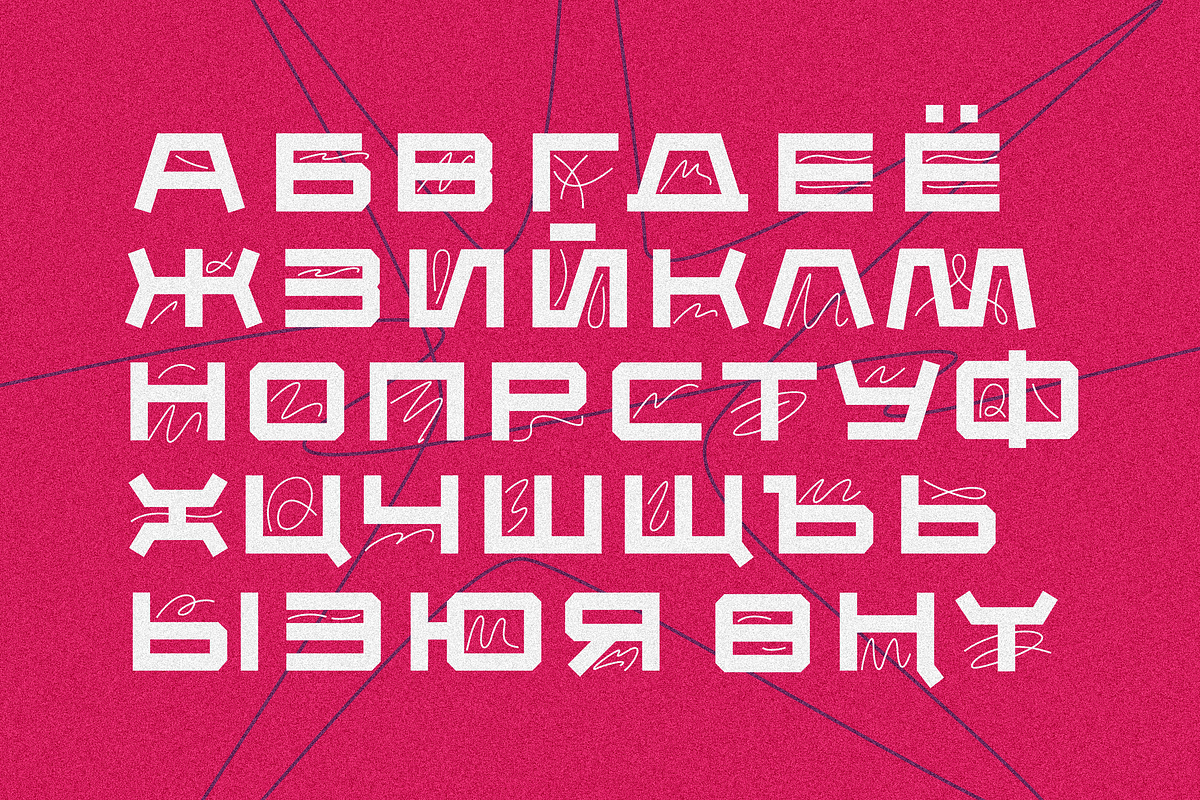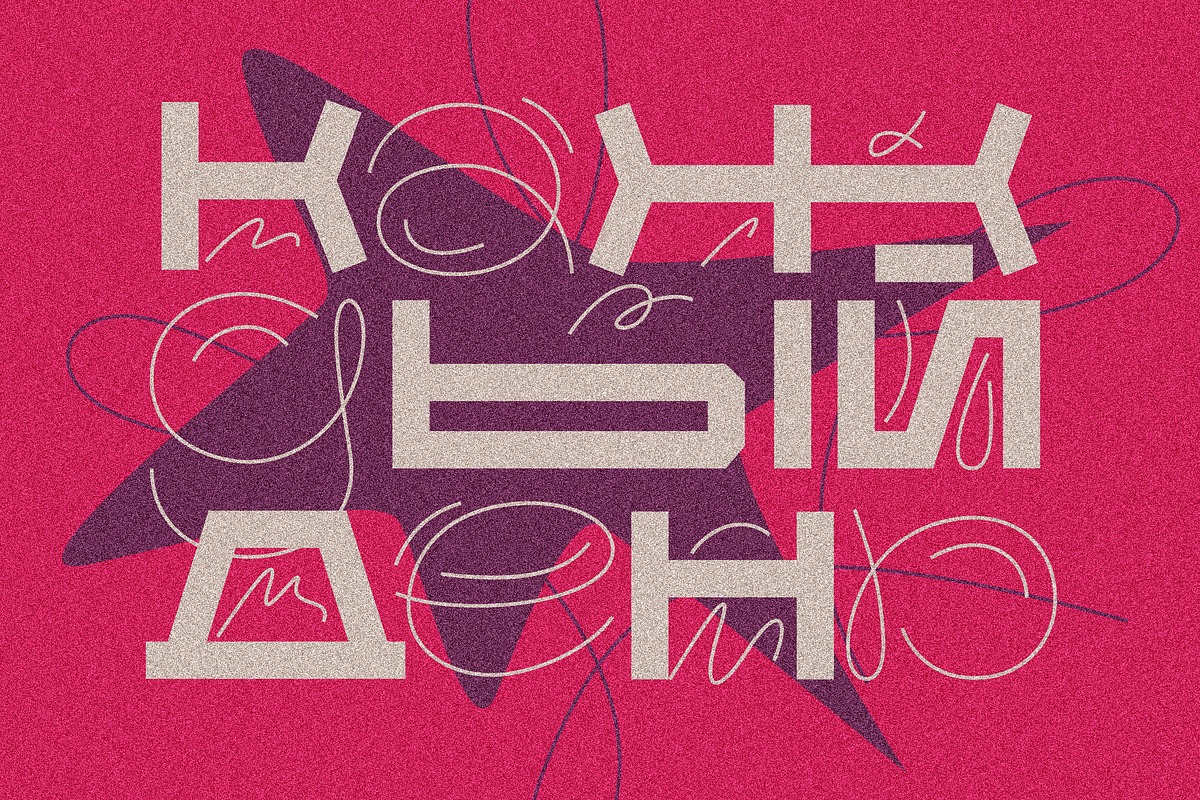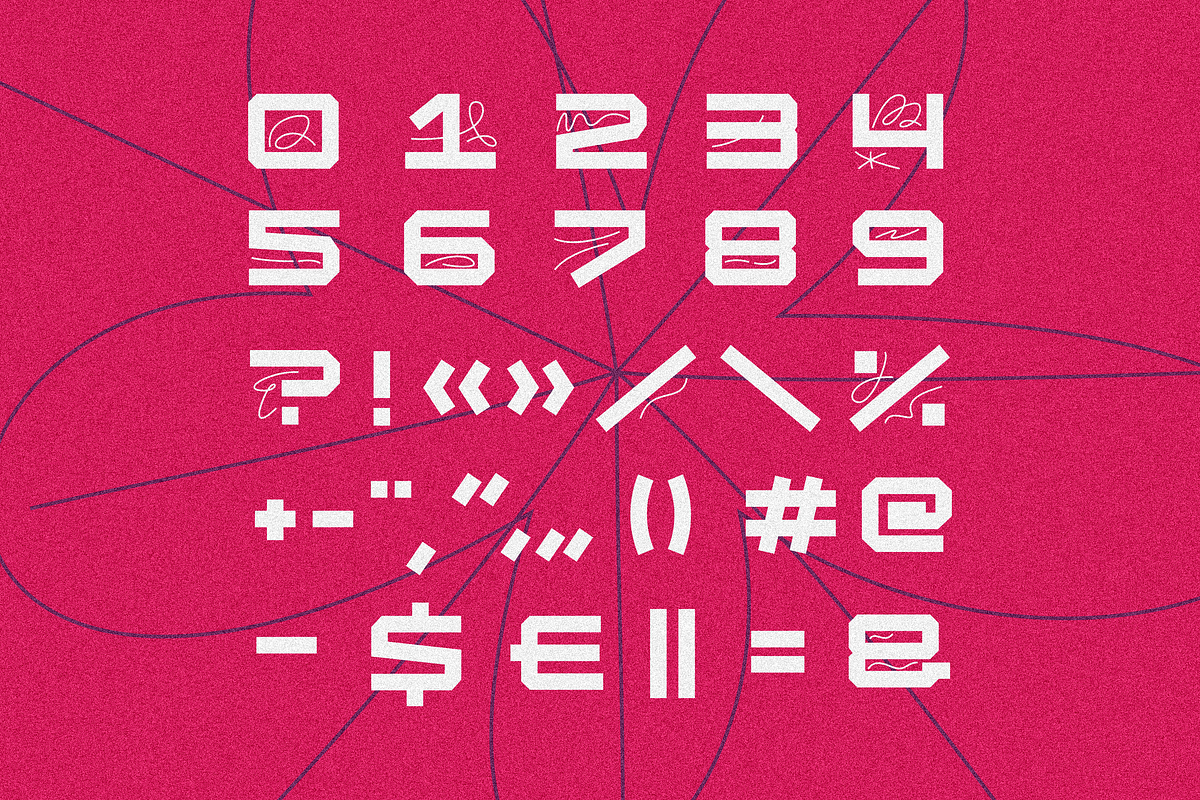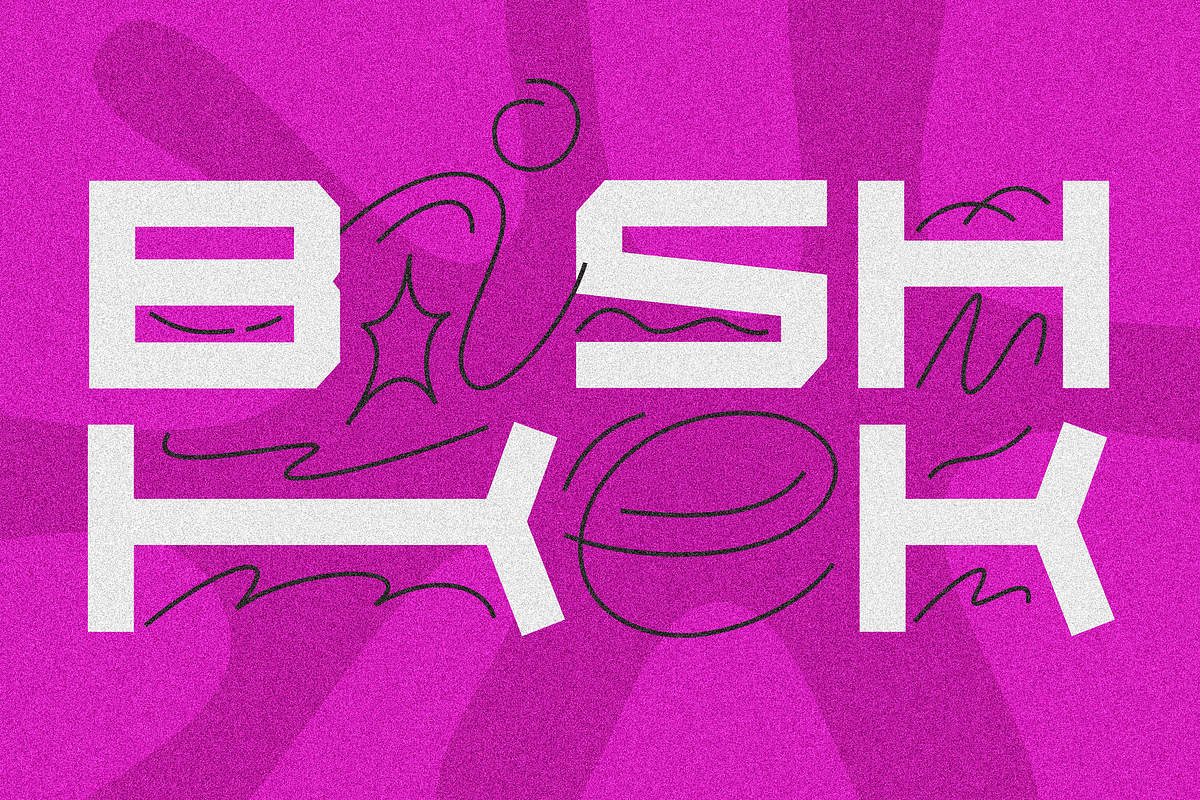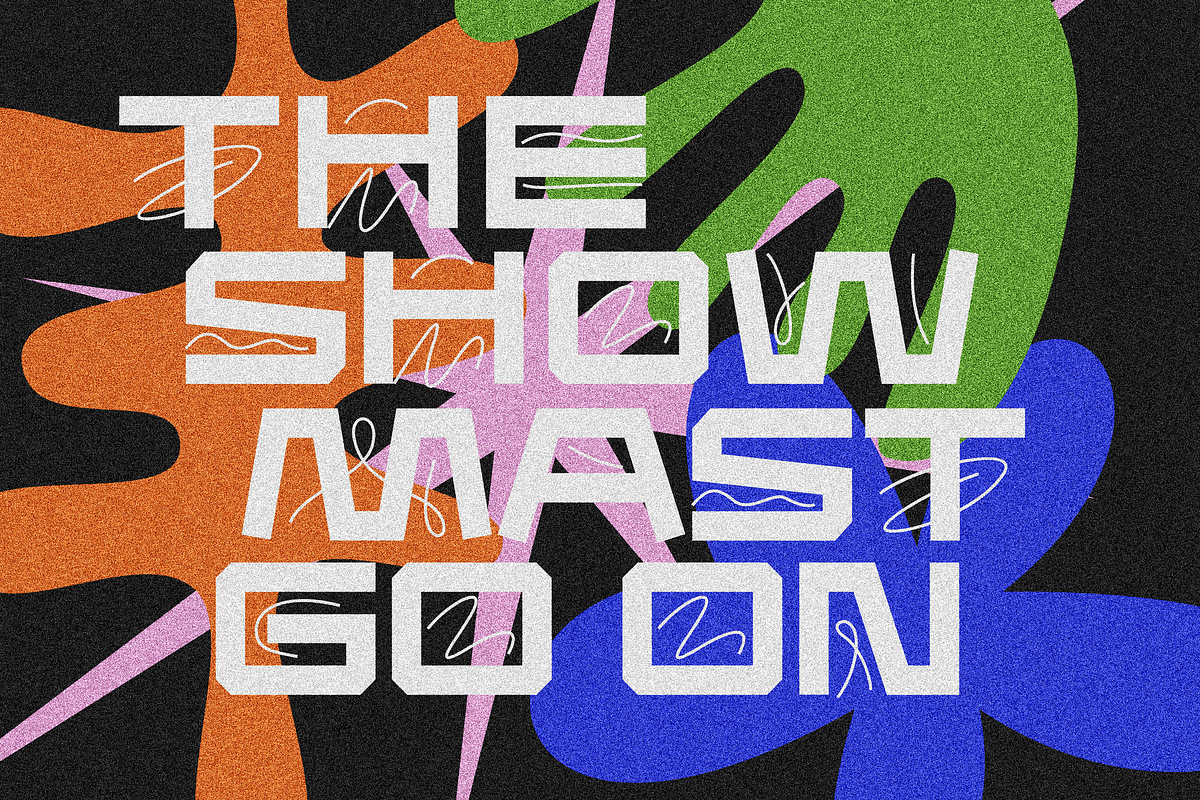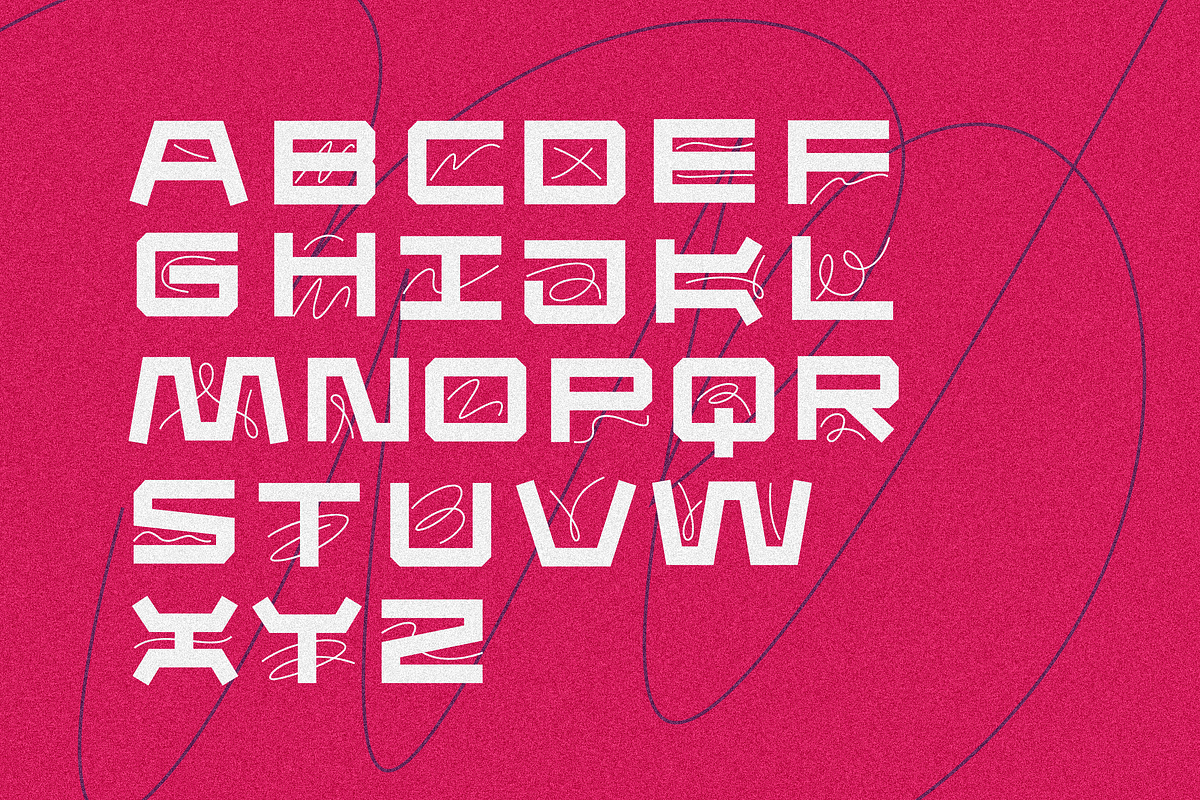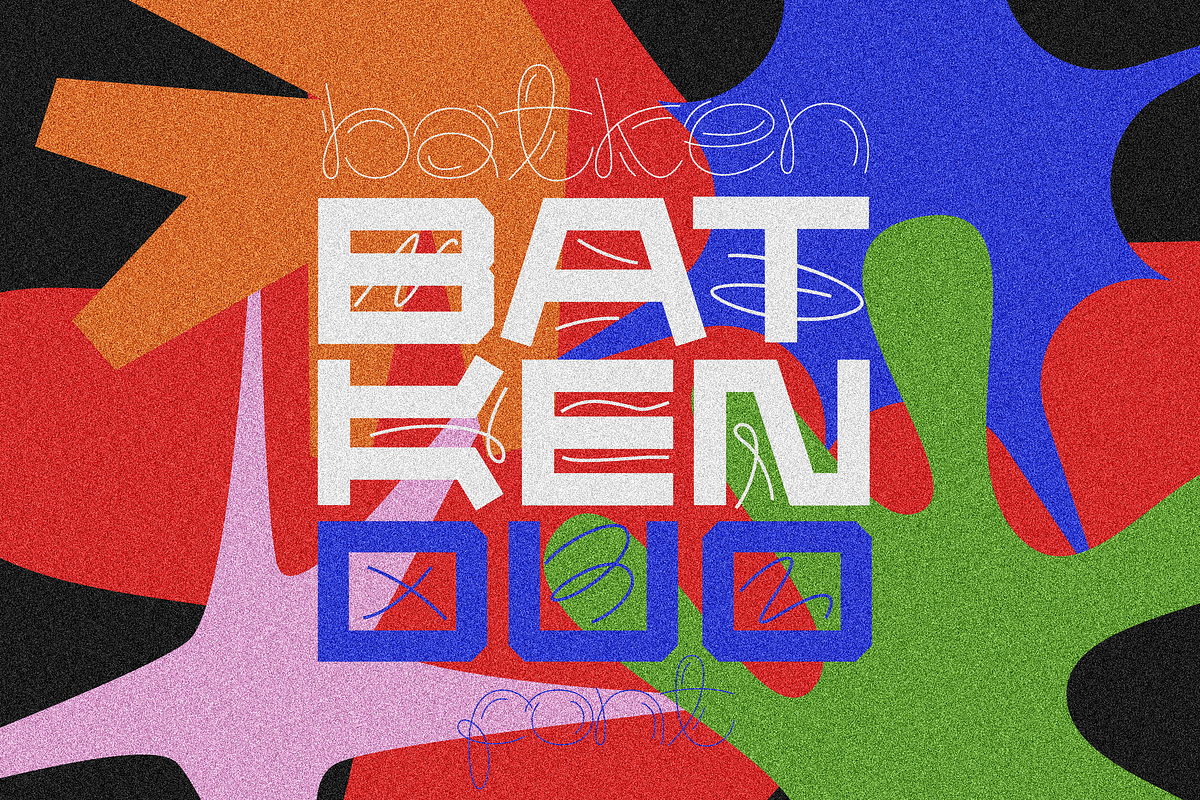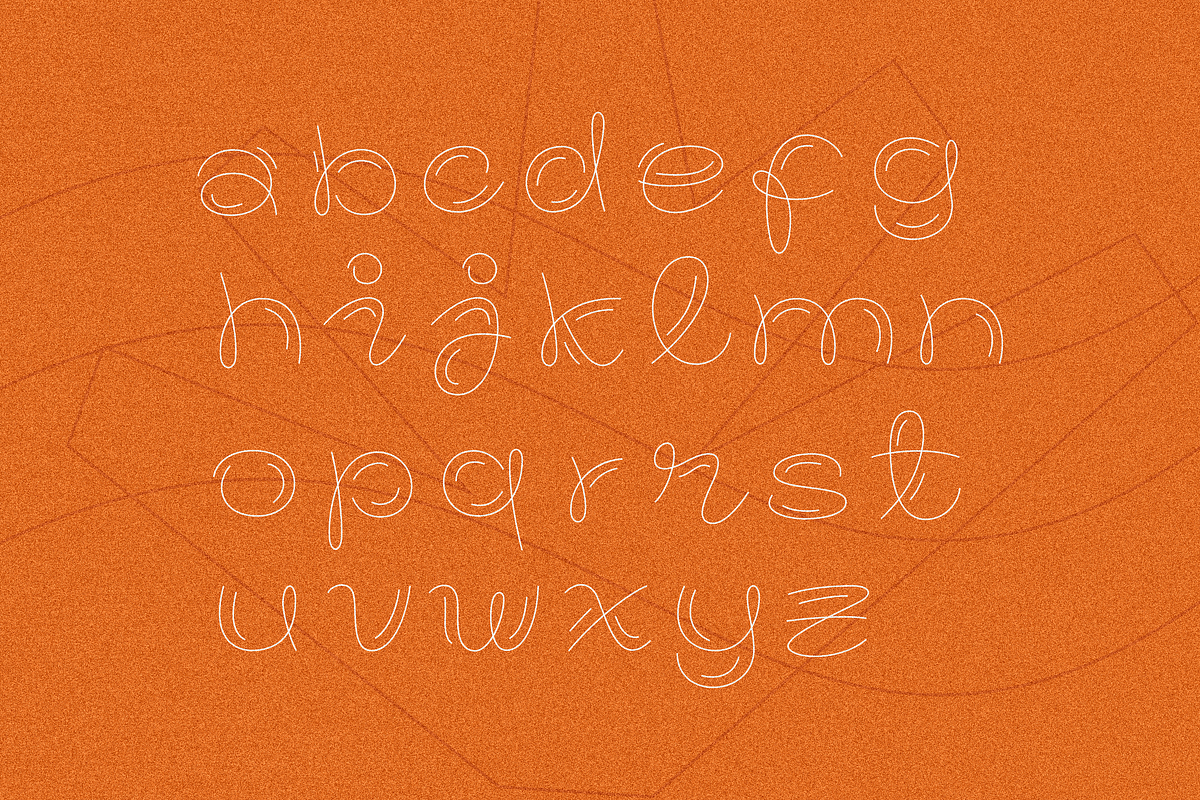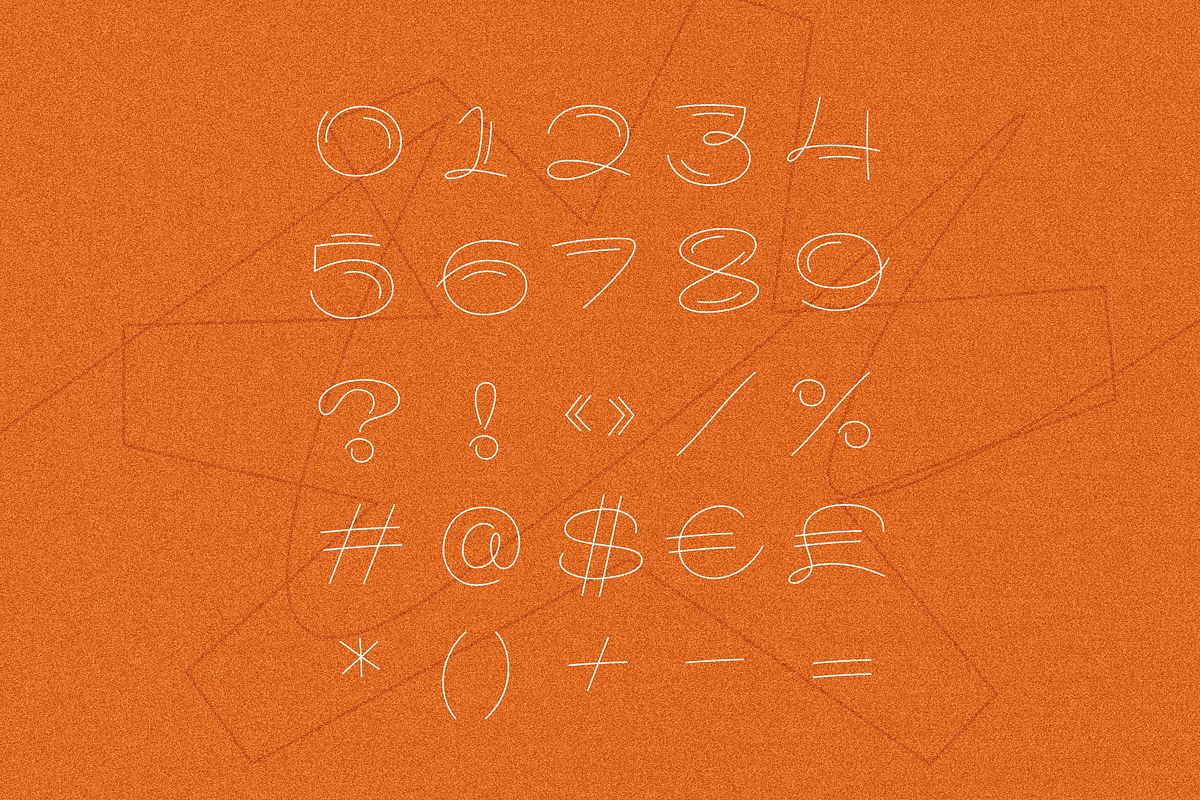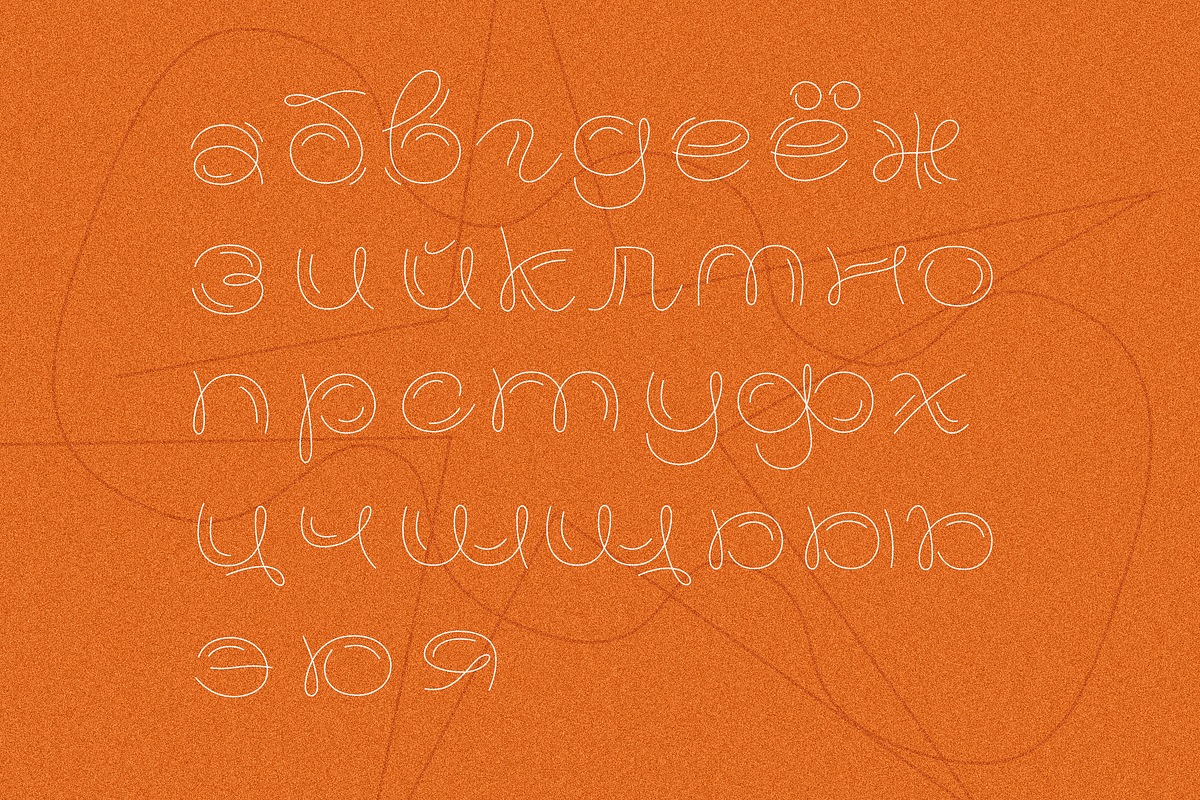
Batken font
Introducing the new Batken Font Duo. Batken is a luxury and sophisticated font duo that includes a signature script and a display typeface – already matched up and ready to be used together for your next design! Batken best used as a display for headings, logos, branding, magazines, product packaging and invitations, etc.